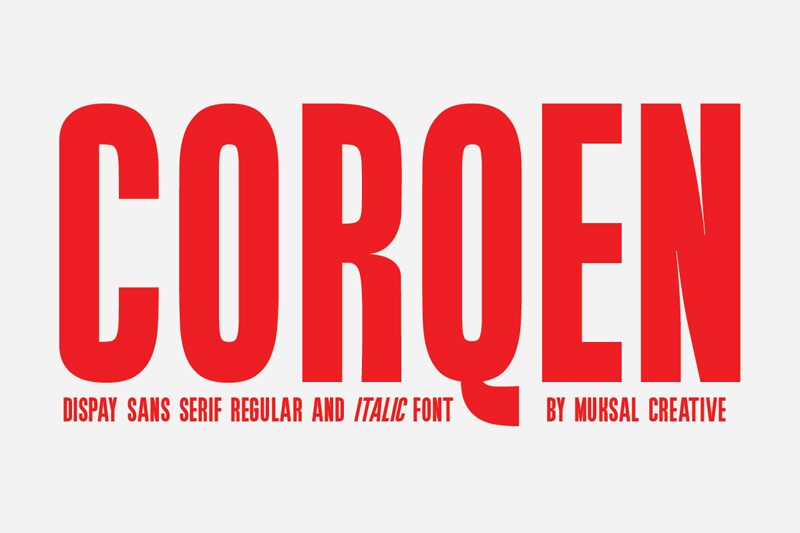
Corqen Regular
Corqen font is a sans-serif, condensed typeface by Muksal Creative characterized with a geometric modern playful and uniform look. With strong legibility and great neatness, the font is a wonderful option for all your general design projects that require text or headline. Mix its optimized functionality with its relaxed laid back vibe for outstanding presentations.
Use Corqen in advertisements, animated motion videos, billboards signs. Also use it in logo design and branded items design like uniforms. It can further be used in titles for books movies and games too or even on book covers and webpage layouts. It works well on more casual presentations like invitations posters too!